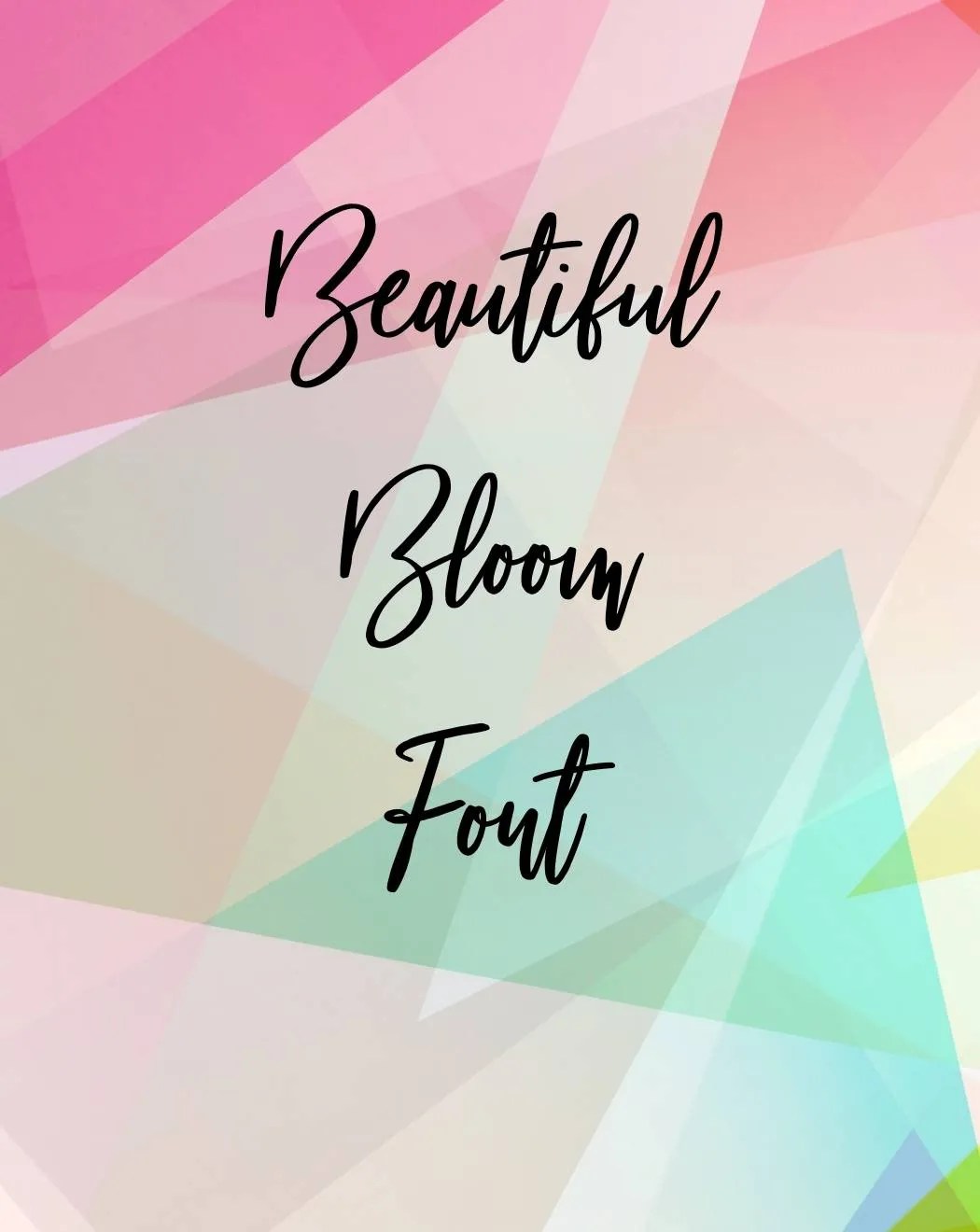
Beautiful Bloom Font. Web beautiful bloom script font is the free demo version that contains only uppercase, lowercase, and numeral.
Web beautiful bloom script font is the free demo version that contains only uppercase, lowercase, and numeral.
Web beautiful bloom script font is the free demo version that contains only uppercase, lowercase, and numeral. Web beautiful bloom script font is the free demo version that contains only uppercase, lowercase, and numeral.